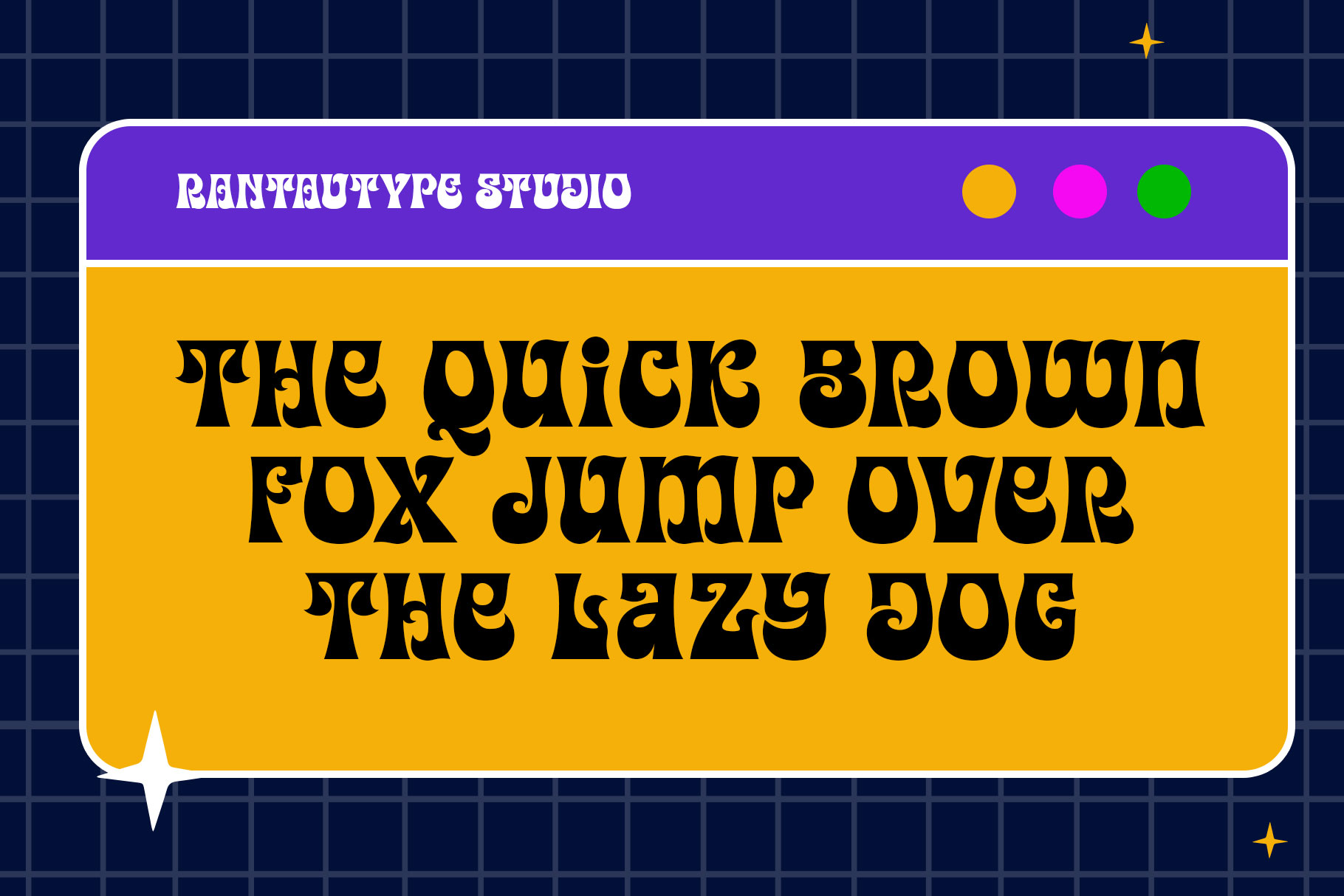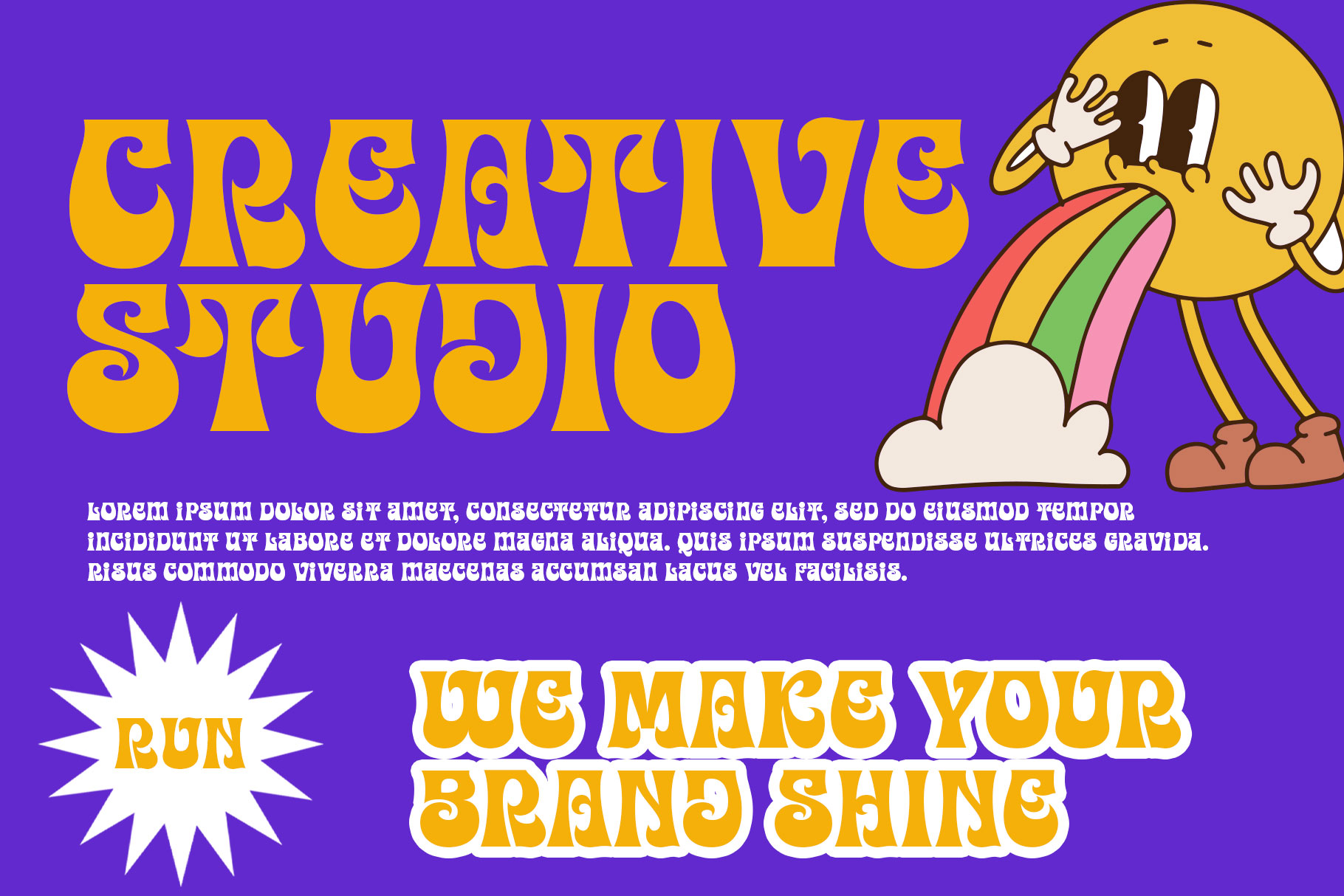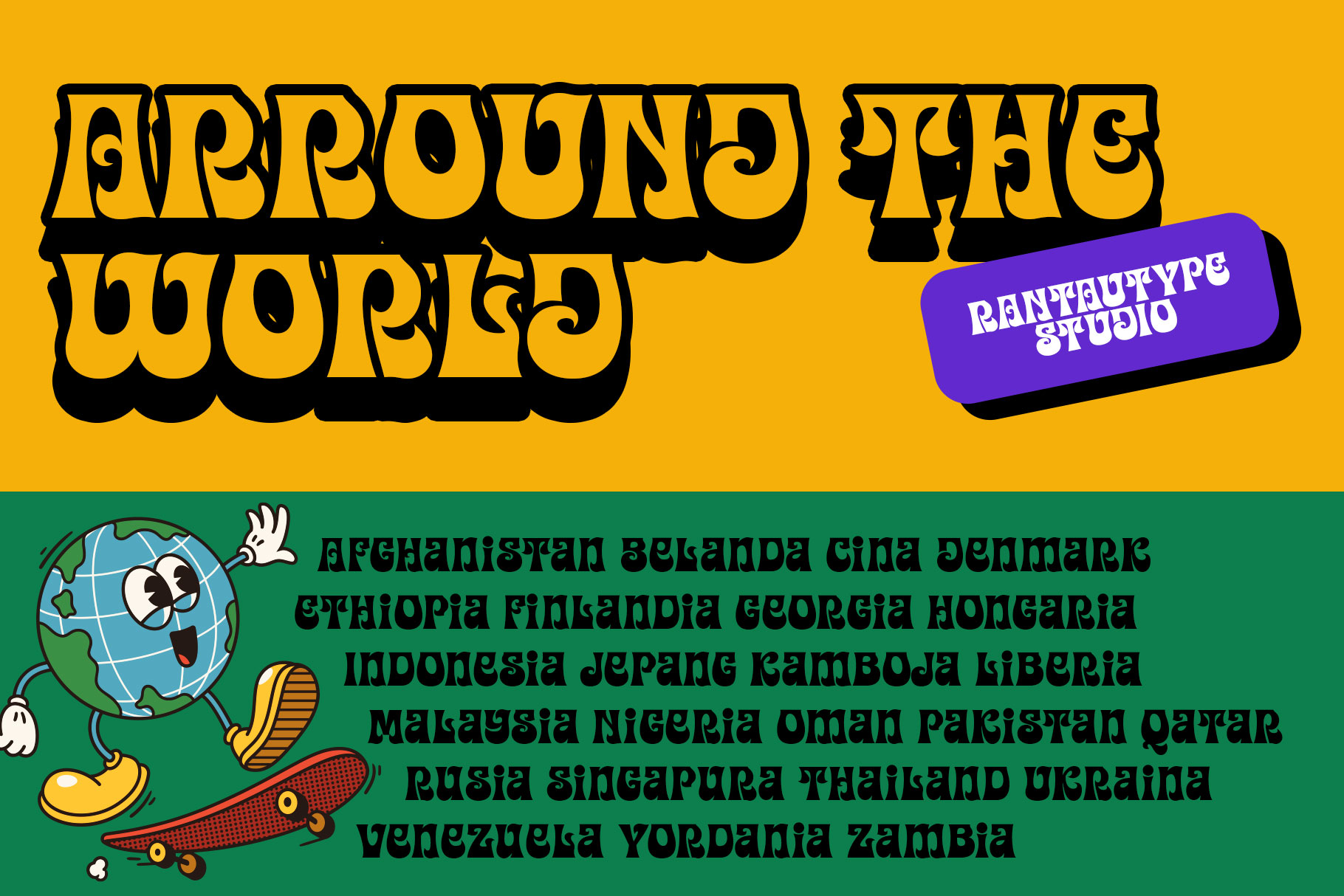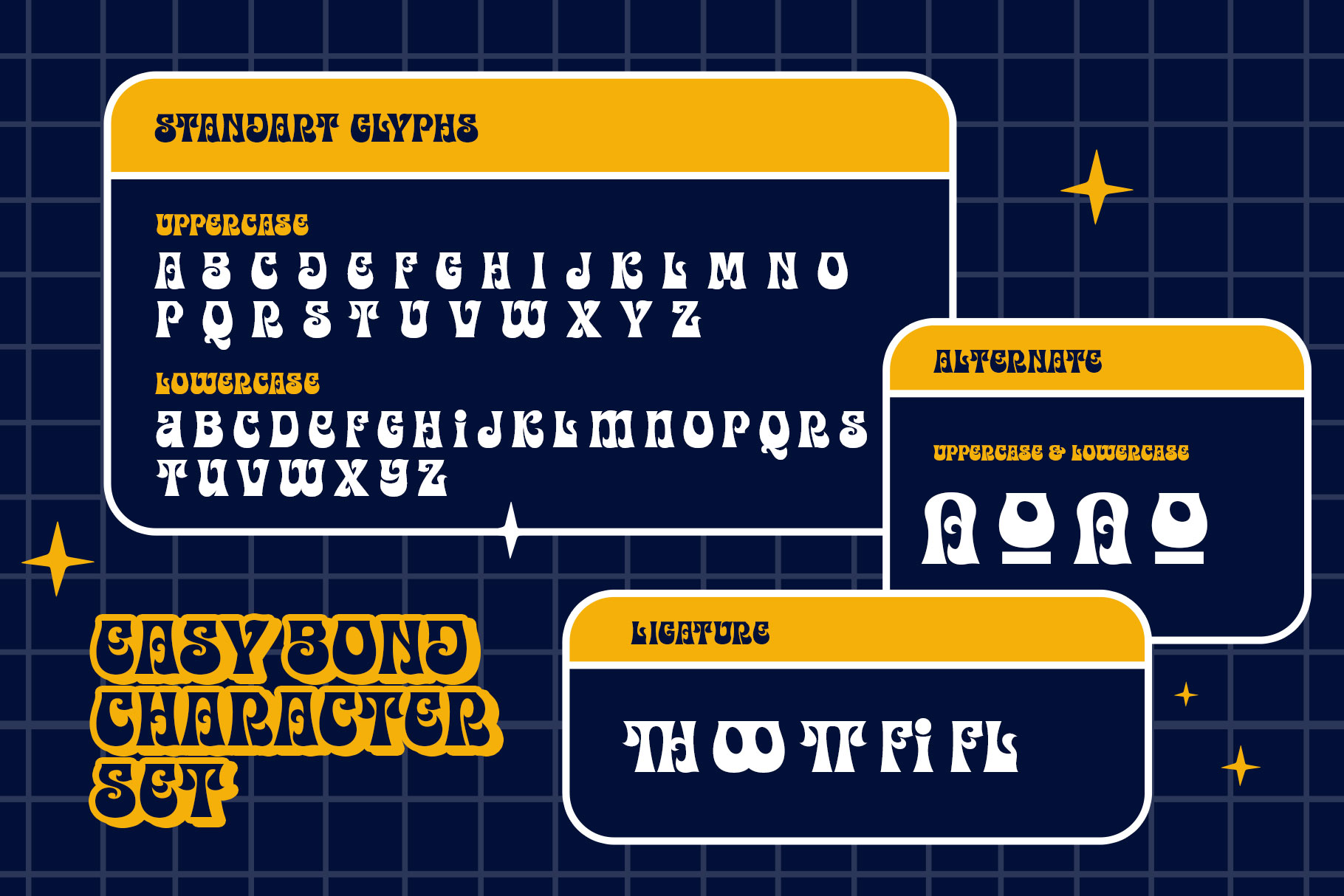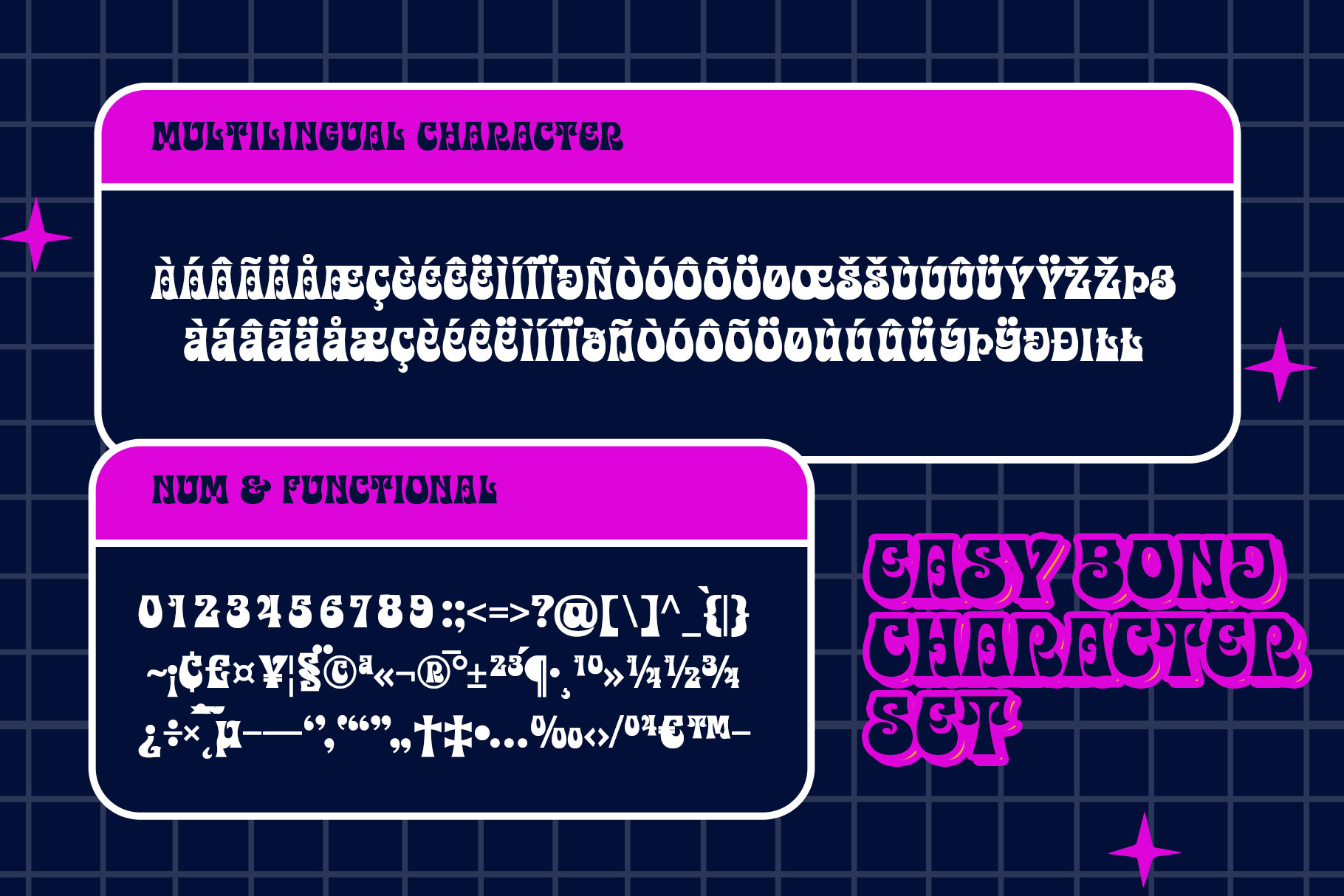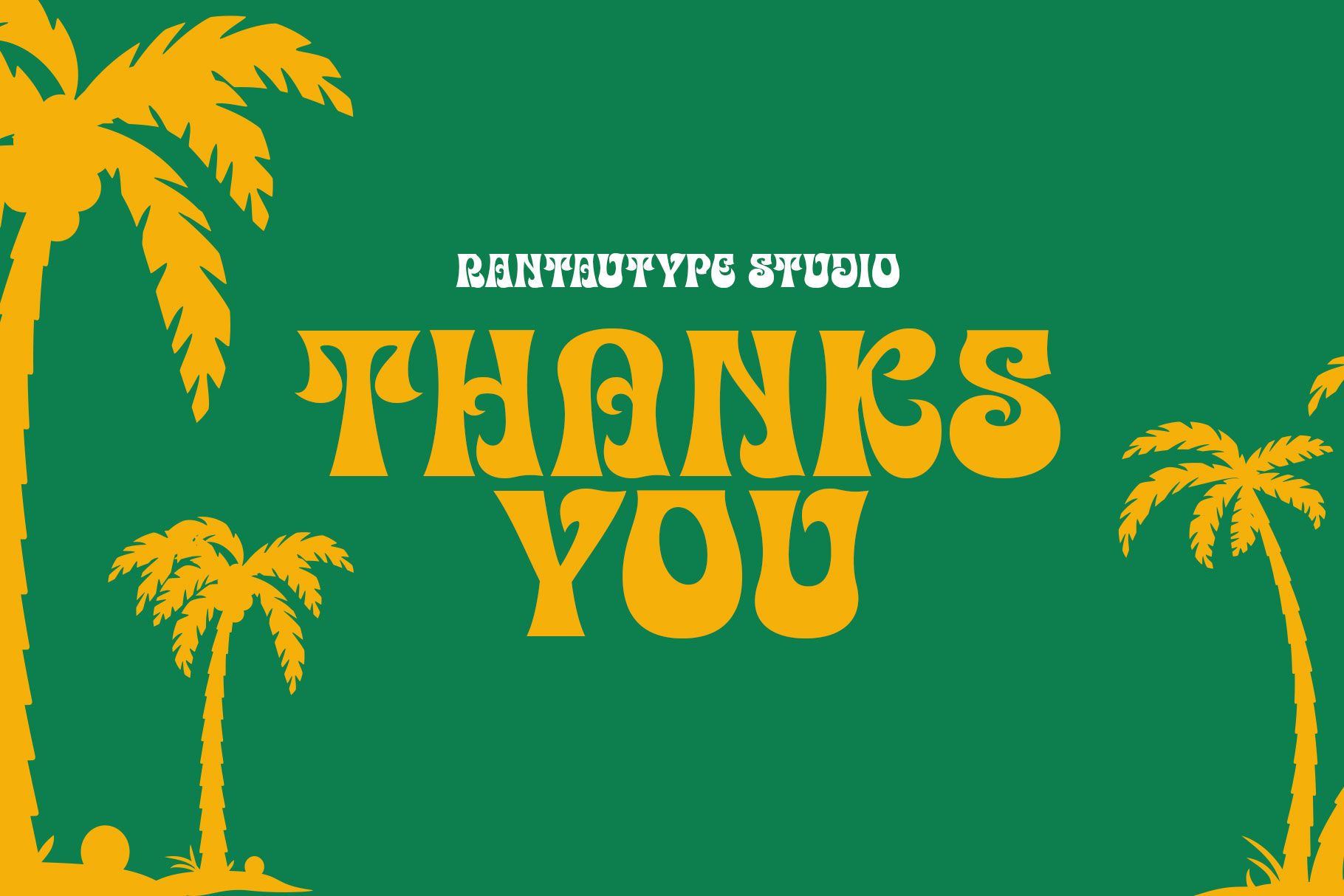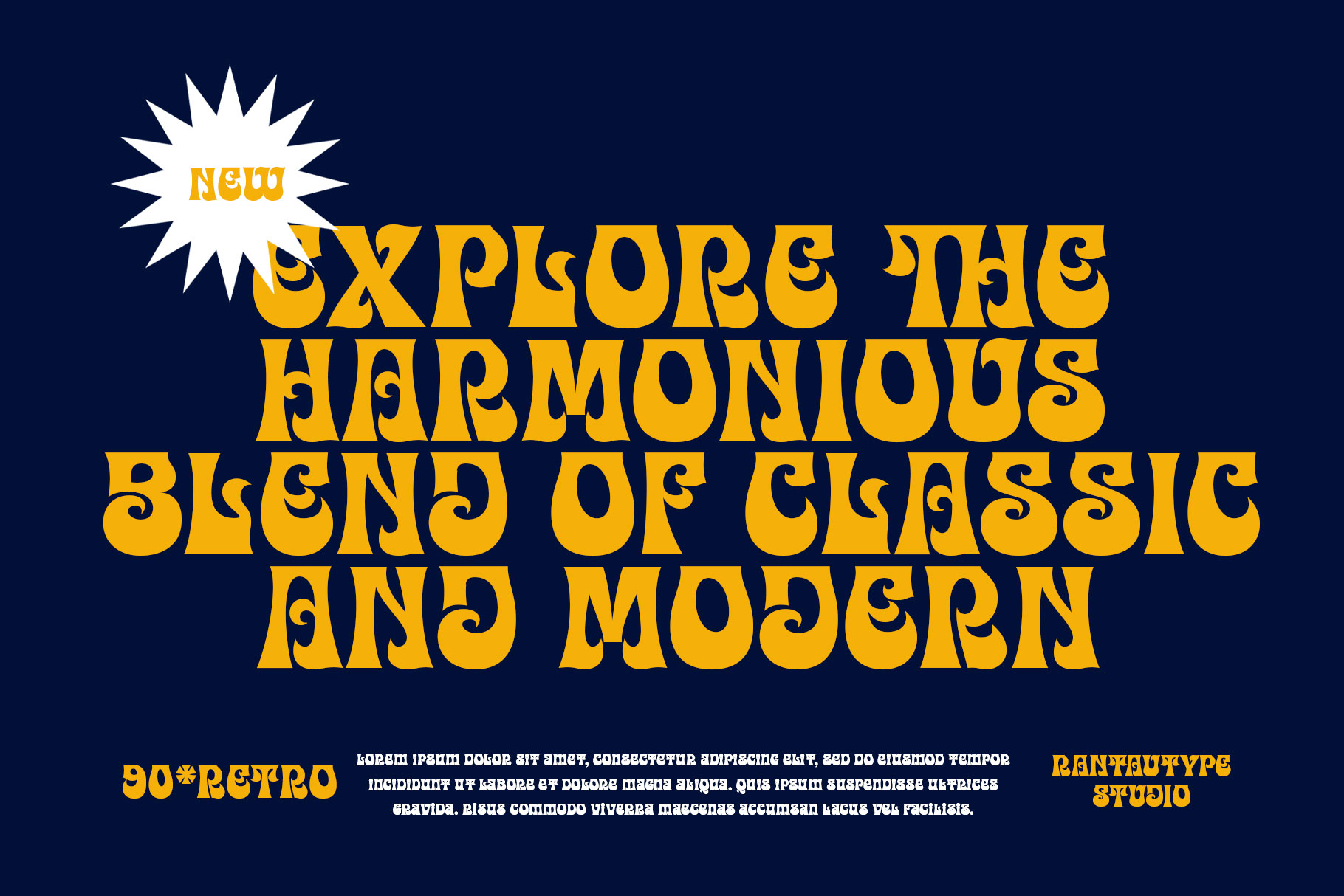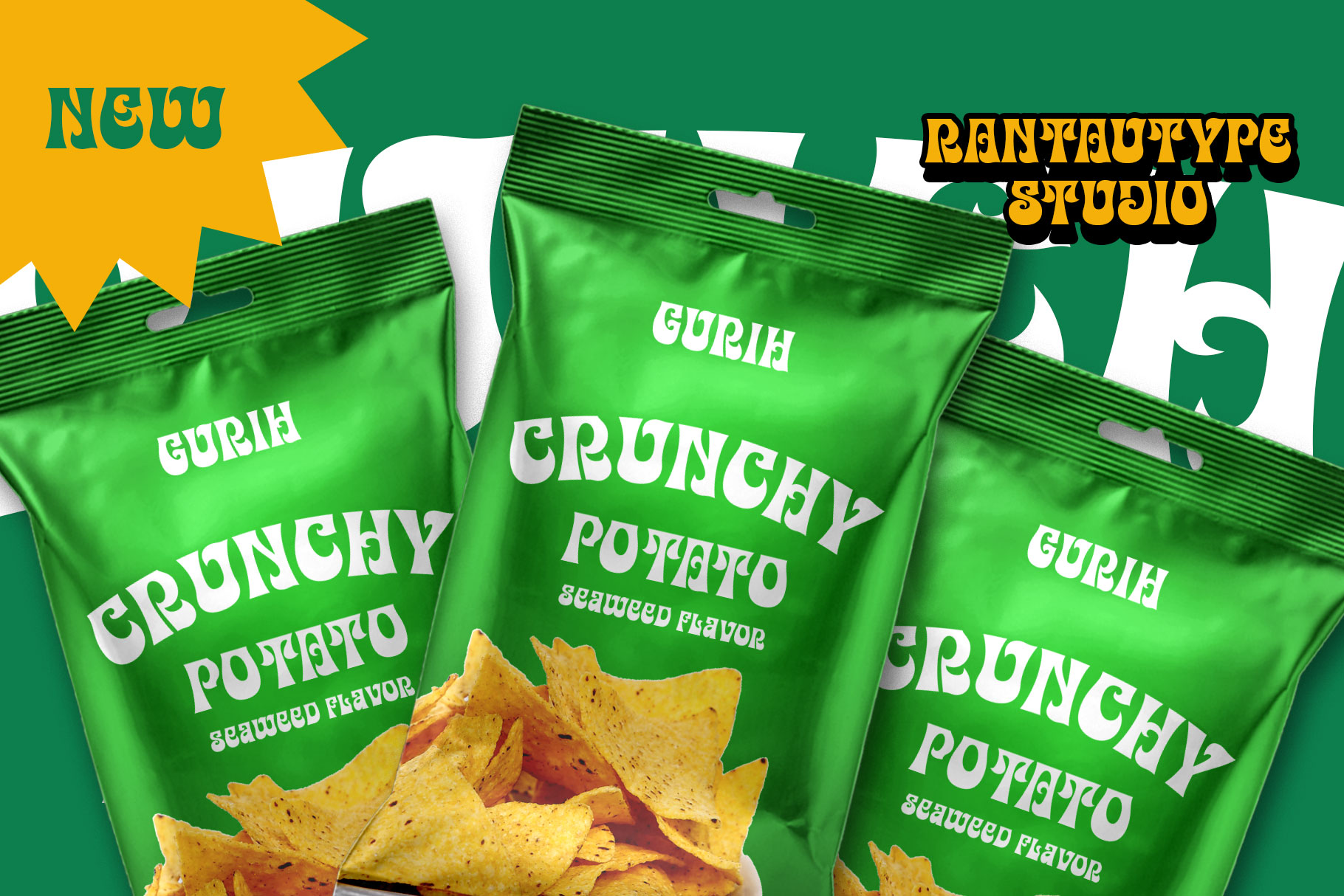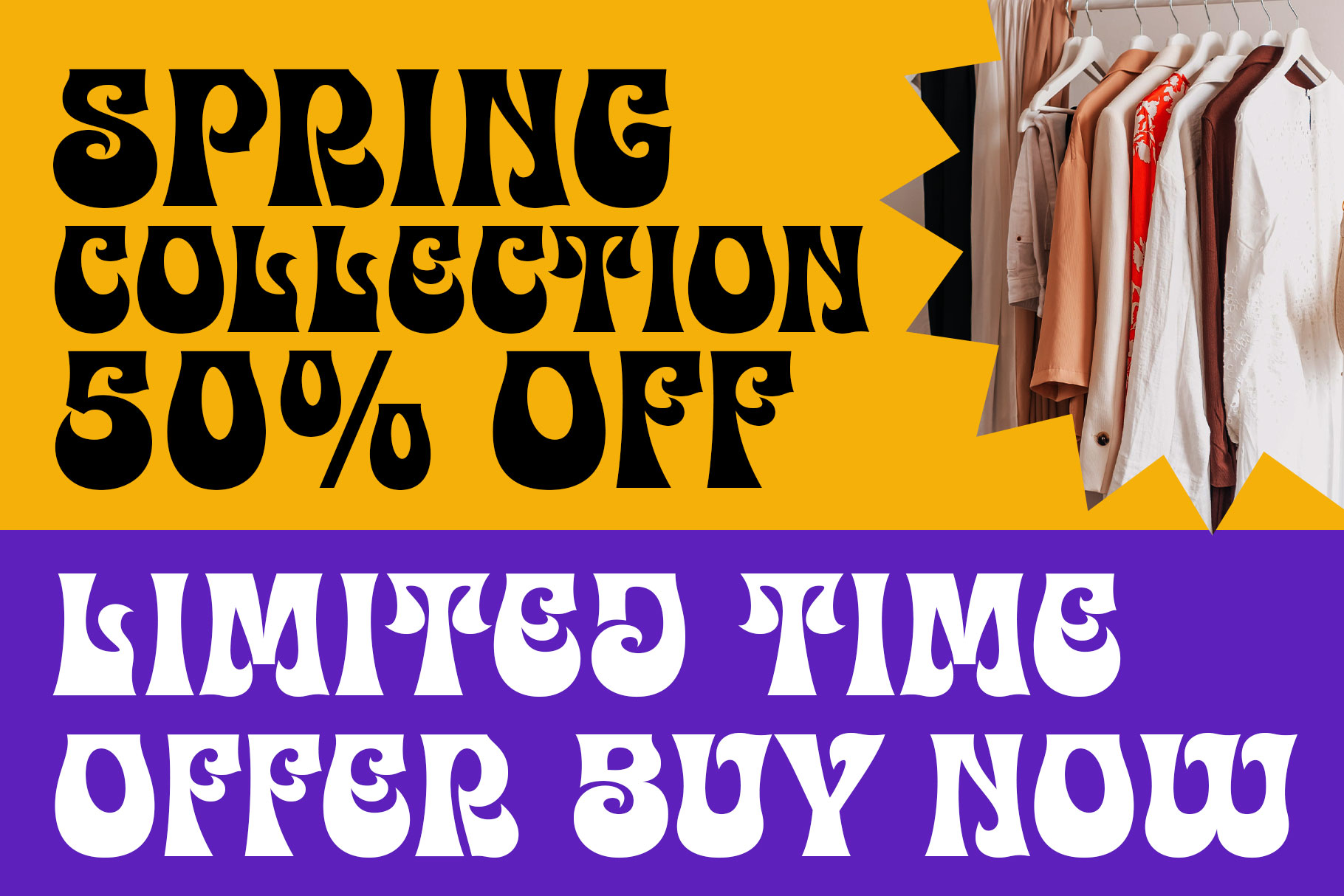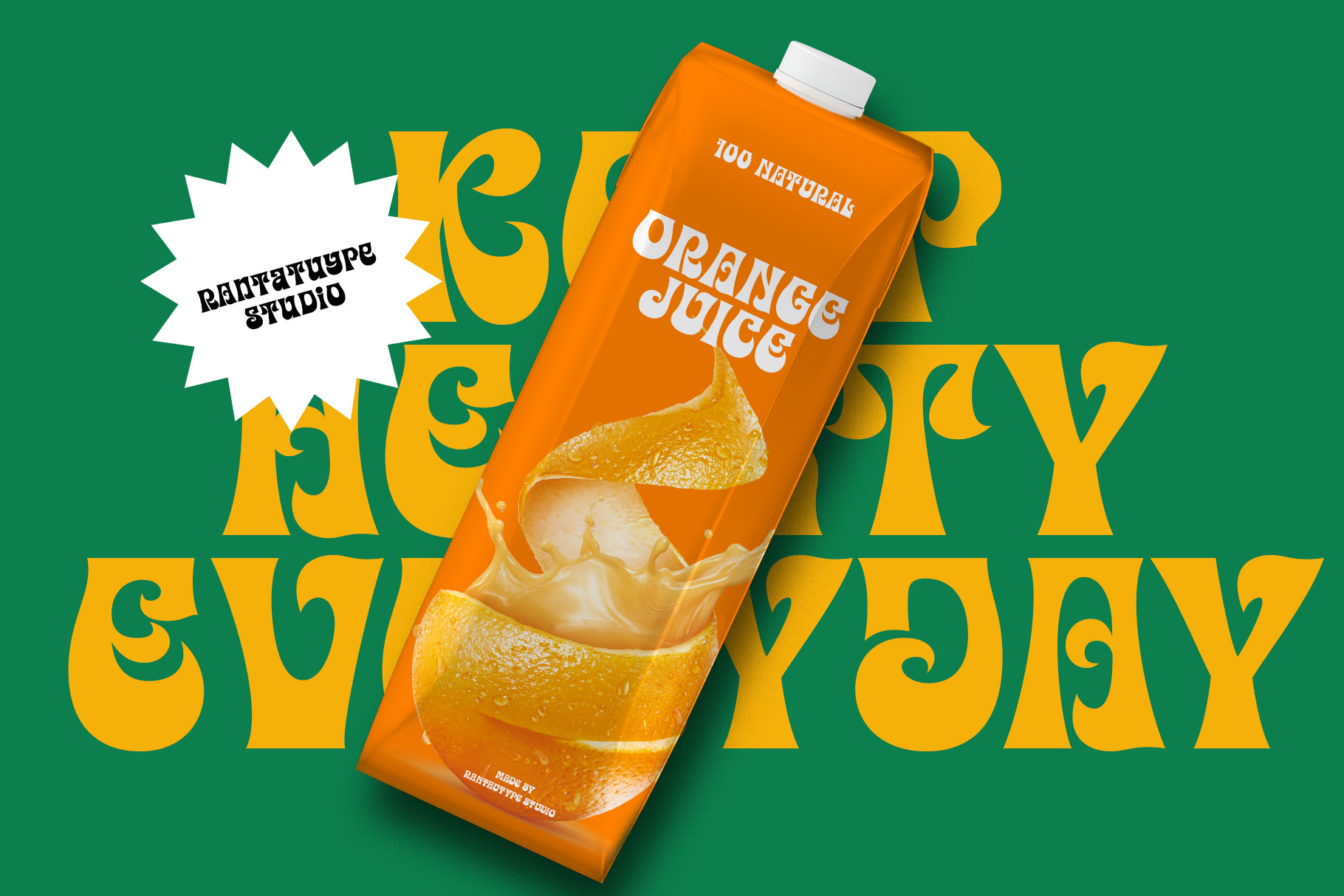
Easy Bond is unique and versatile serif display font. This font can give your designs a playful and friendly impression. Come with more alternate, ligature and already support multilingual character.
Easy Bond separate in reguler and italic, is a beautiful choice for any creative endeavor, creating fun, modern, chic, lifestyle design such as logos, title, cover, branding, business project, corporate project, packaging, display, magazine and more design